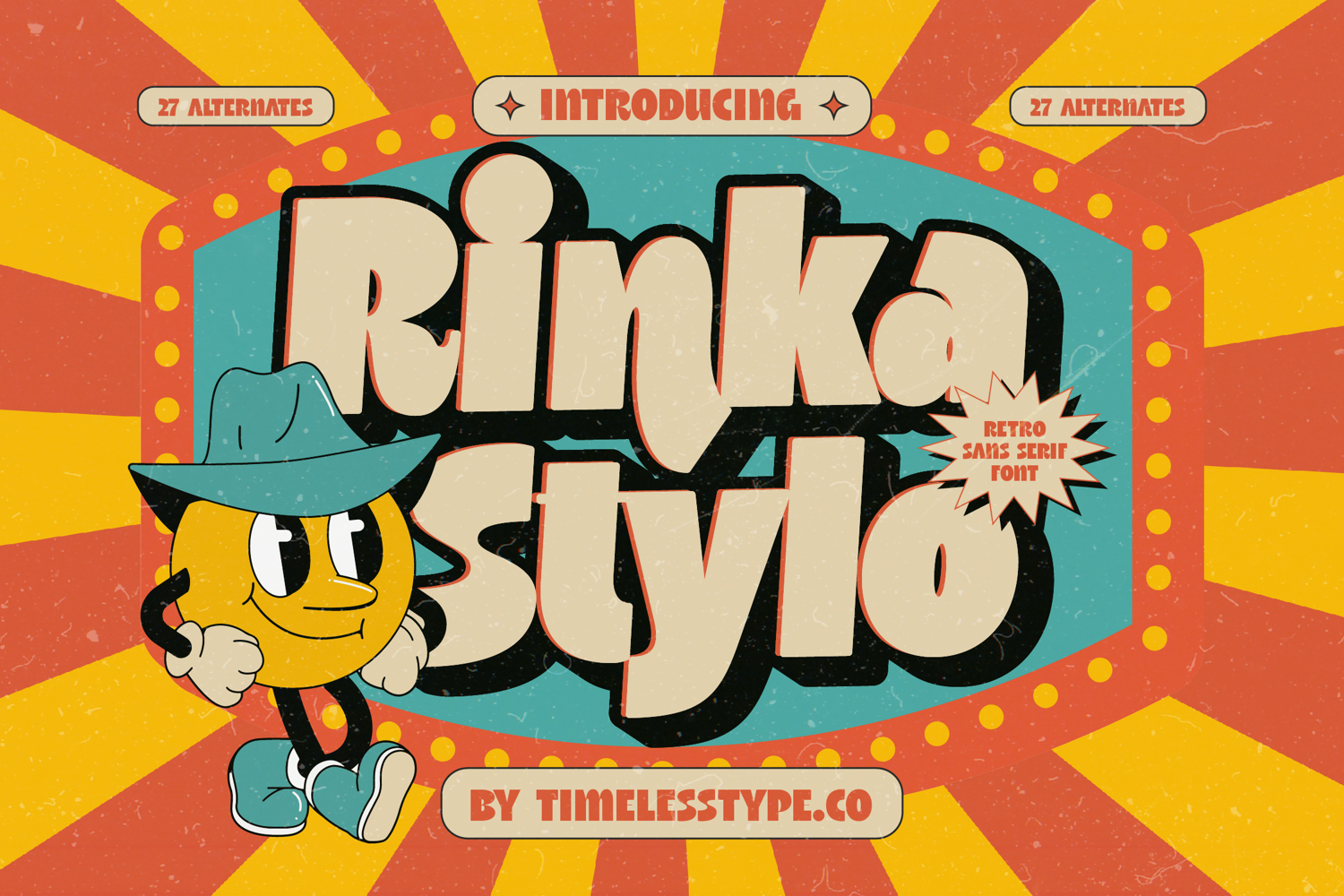
Rinka Stylo - Retro Sans Serif Font
The Rinka Stylo Typeface is a retro sans serif font with a bold, playful style and a strong nostalgic character. Featuring 27 stylistic alternates, this font is designed to capture the vintage charm of the 70s and 80s while blending in a modern touch that keeps it relevant for today’s design needs. Its thick, rounded letterforms full of personality make it an excellent choice for projects that require cheerful energy, retro flair, and strong visual impact.
This typeface is highly effective in editorial design, especially for retro posters, vintage magazine covers, and creative zine layouts. The variety of alternates provides flexibility for creating expressive and distinctive typography.
In branding and packaging, Rinka Stylo is perfect for food & beverage products, toys, streetwear fashion, and youth-oriented creative brands. Its retro aesthetic delivers a visual identity that is unique, fun, and memorable.
For entertainment and promotional design, this font works beautifully on concert posters, retro cultural events, music festivals, and album covers. Its bold and funky character ensures that messages stand out and grab attention.
In the world of digital design, Rinka Stylo shines across social media content, retro-themed websites, digital advertising, and motion graphics. With multilingual support, it adapts seamlessly to a variety of global projects.
In short, Rinka Stylo Typeface is a retro sans serif display font created to bring joy, nostalgia, and playful style. Perfect for editorial, branding, packaging, entertainment, advertising, and digital campaigns, this font transforms typography into a vibrant, fun, and character-rich visual element that bridges vintage charm with modern appeal.